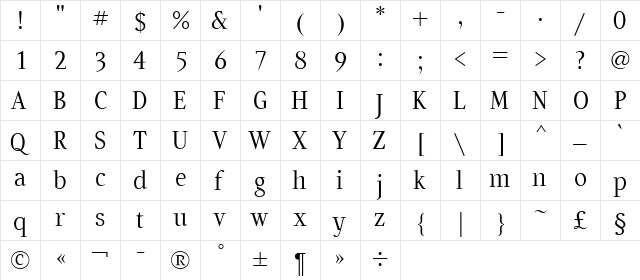
Artemius Light TT Regular
Design Context for Artemius Light TT Typeface
Artemius Light TT is a composed and adaptable typeface that performs quietly and consistently across a wide range of design contexts. Its slender proportions lend an understated elegance to any composition.